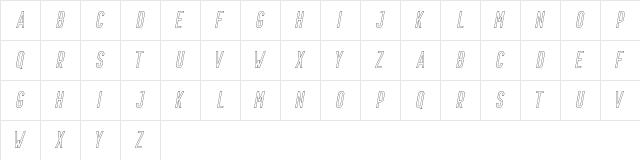
Complete Prestage Outline Italic glyph index. Displaying only characters natively supported by Prestage Outline Italic font.
Prestage is built around its visual character rather than neutral utility - its distinctive forms are designed to make an impression at display sizes. The slanted form adds forward momentum and visual energy.
Font Pairing: Pair with a clean neutral sans-serif for body copy to let Prestage's character lead without overwhelming the composition.
Pro Tip: Use Prestage exclusively at display sizes - it was designed to be seen, not read at length. Let a neutral companion handle body copy.